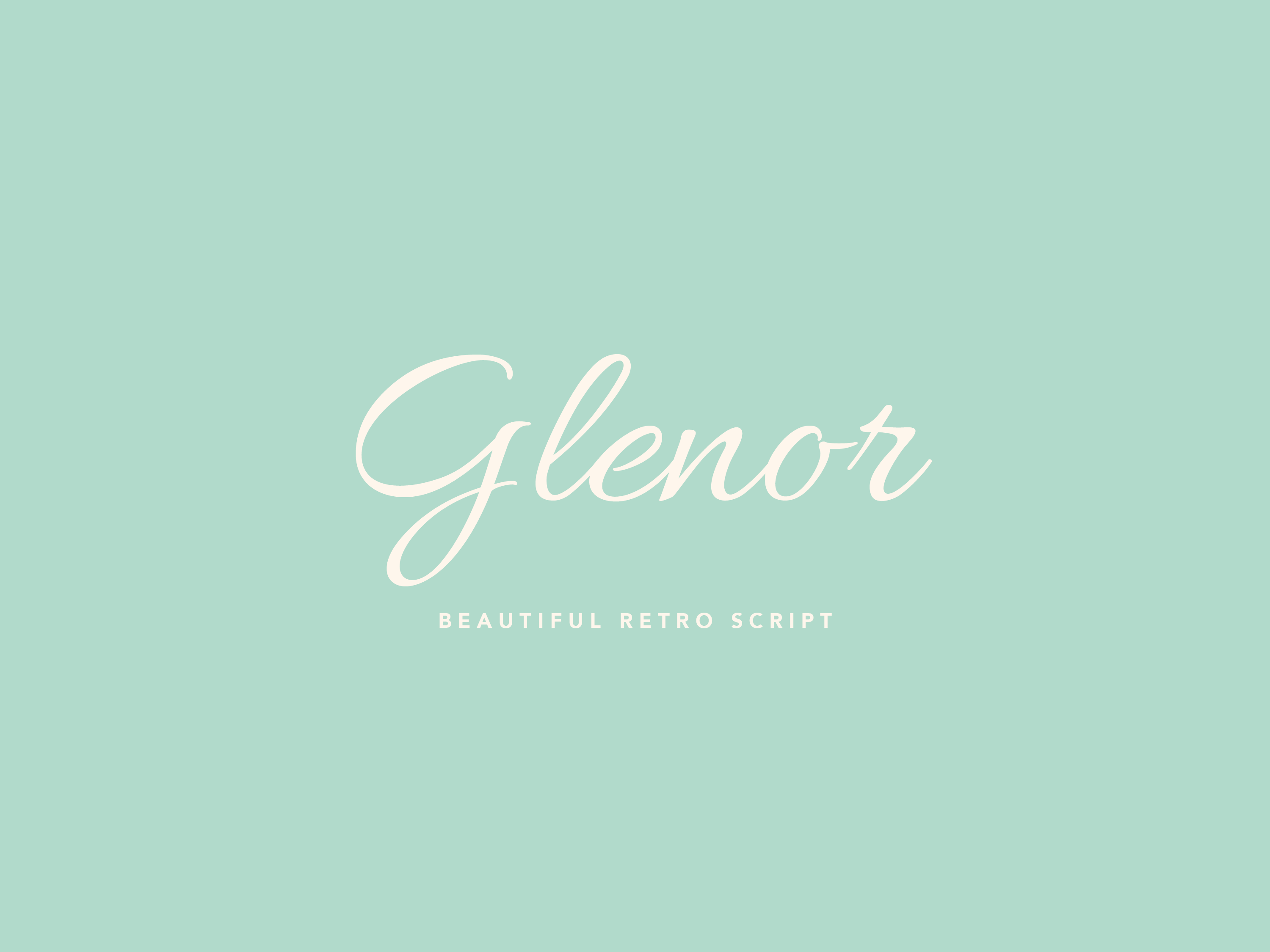
Glenor Script Font
Glenor – A Versatile and Elegant Typeface
Glenor is a clean and highly legible typeface that masterfully combines casual simplicity with formal elegance. Featuring both script and formal character sets, it strikes the perfect balance between modern readability and classic sophistication.